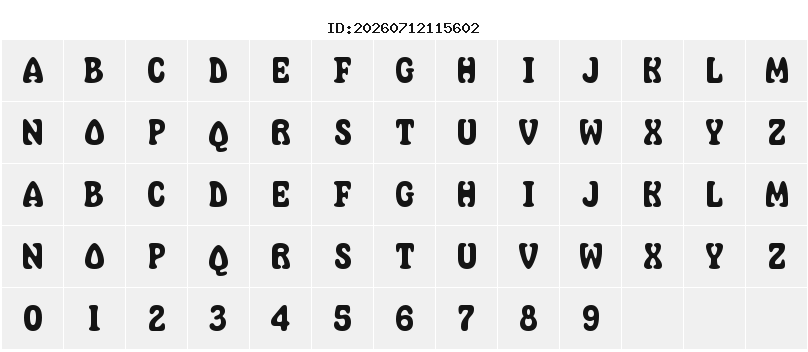
• Font Name: Mahavishnu
• Full Font Name: Mahavishnu
• Designer: Ray Larabie
• Manufacturer: Ray Larabie
About Mahavishnu.ttf
Mahavishnu.ttf is a modern, elegant sans-serif font designed for ultimate readability and visual harmony. Perfect for branding, headlines, web design, and print materials.